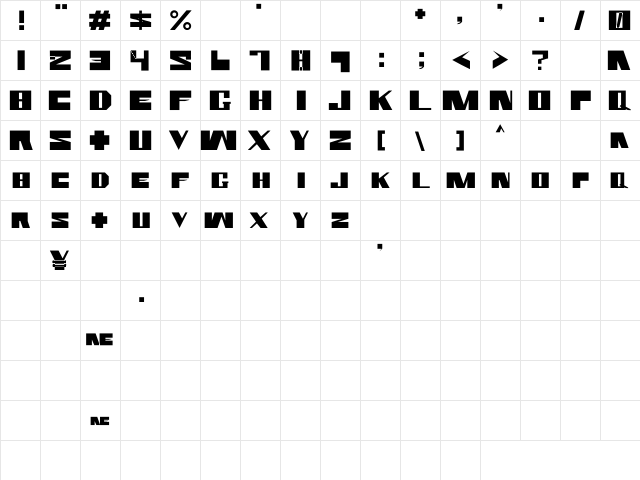
Rammstein Font By: AiR Rammstein Font BY: AiR Font Preview
| Foundry | Rammstein Font Made By: AiR |
| Designer | AiR |
Design Context for Rammstein Font By: AiR Typeface
Rammstein Font By: AiR is a composed and adaptable typeface that performs quietly and consistently across a wide range of design contexts.